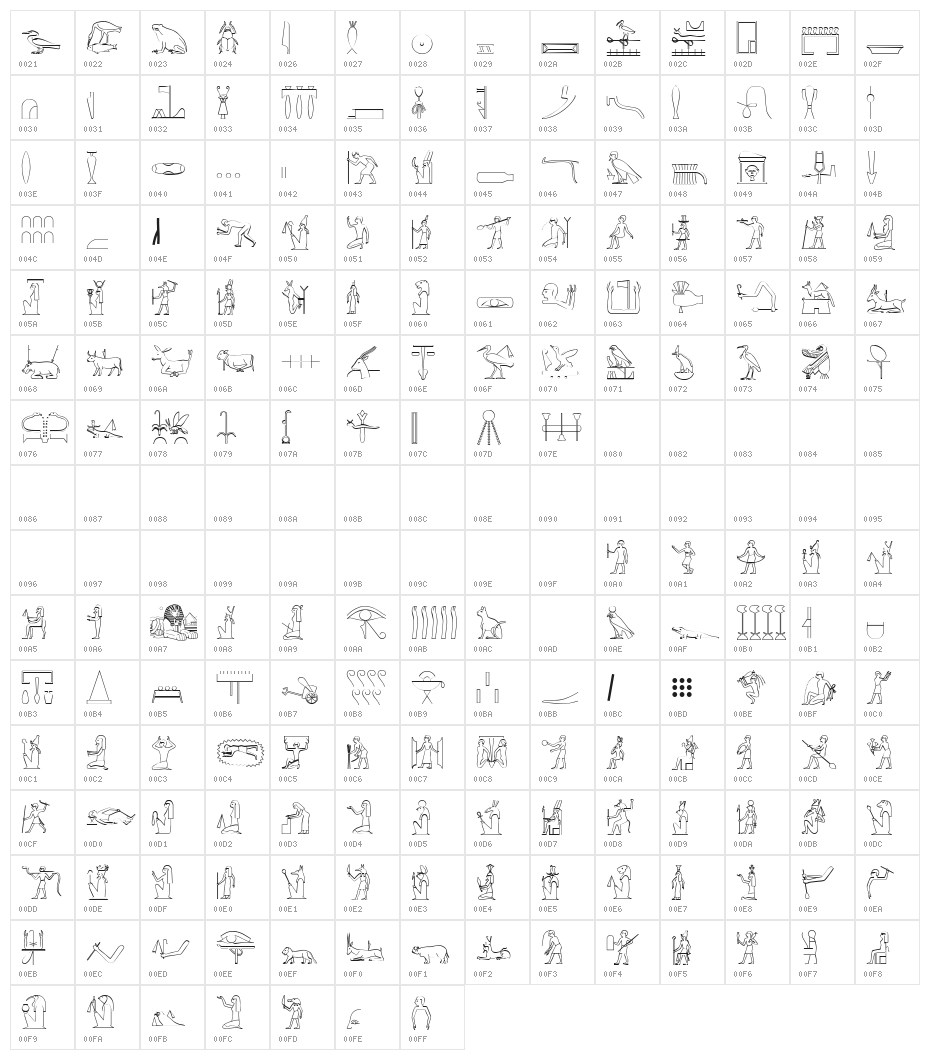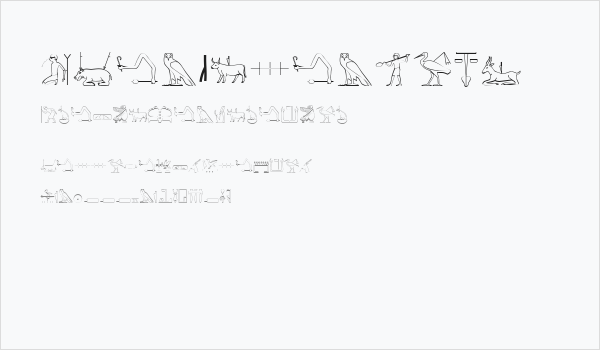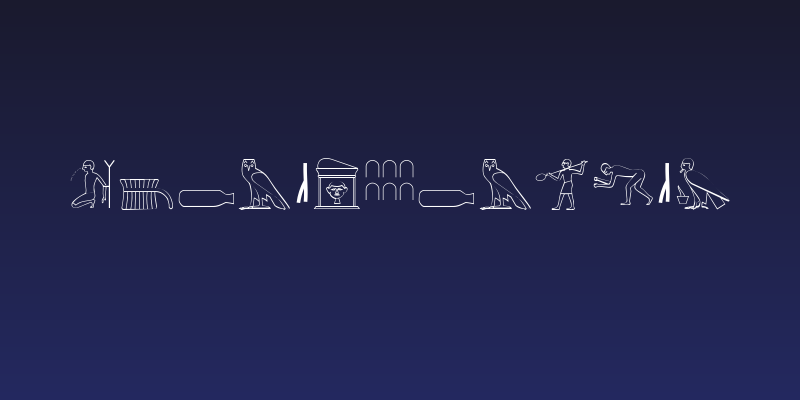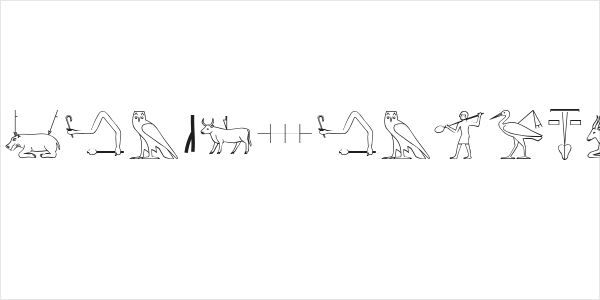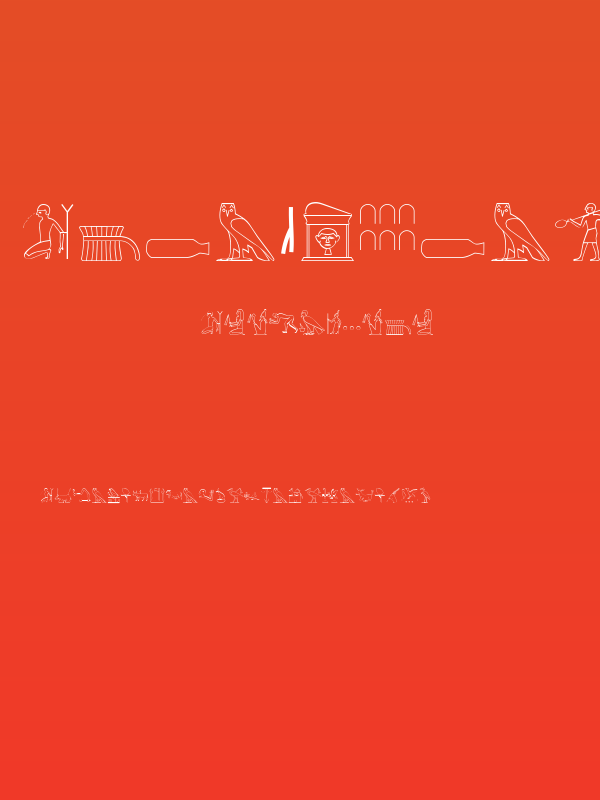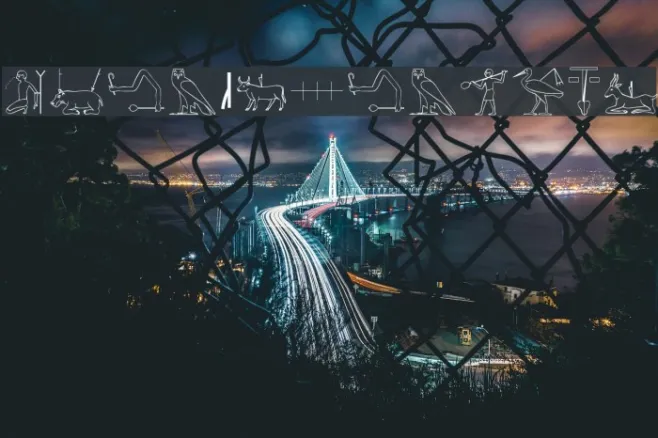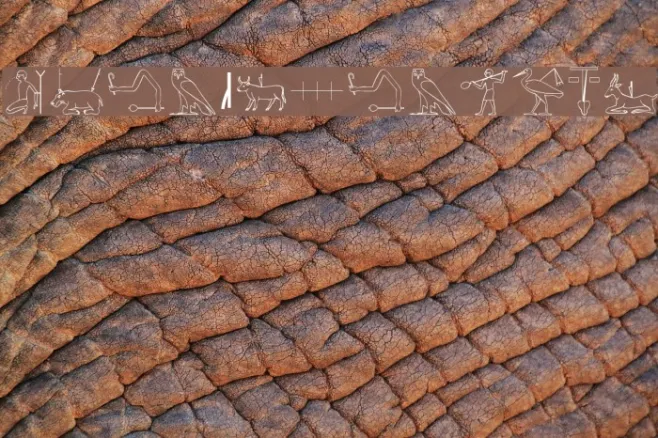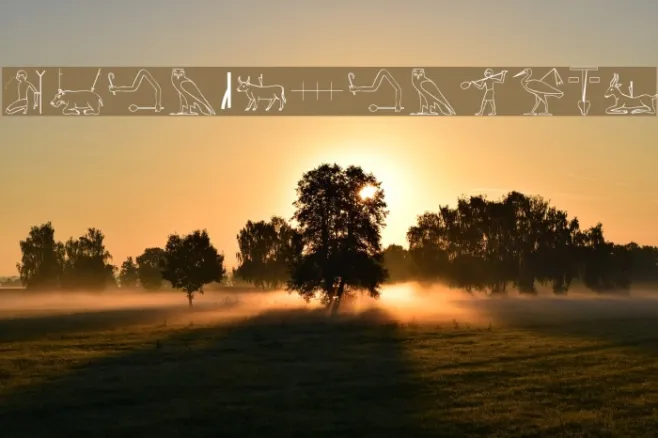
The Nile Song Font
The Nile Song Description
A decorative font based on ancient Egyptian hieroglyphs, featuring intricate line drawings of people, animals, and symbolic objects. Each character is represented by a unique pictogram, giving the typeface a historical and ornamental appearance. The glyphs are detailed and vary in complexity, with consistent line weight and spacing.
| Overall Style | Decorative, Historical |
| Use Case | Logos, Posters, Themed Headlines, Educational Graphics |
| Proposed Projects | Museum displays, educational materials, historical posters, themed event invitations, art projects. |